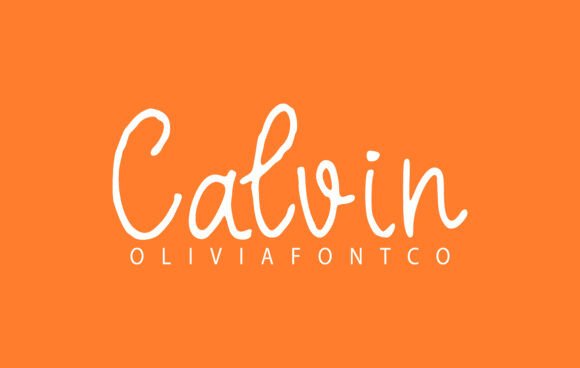
Introducing Calvin Font: The Ultimate Handwritten Font for Creative Expression
Are you looking for a font that can add a touch of romance and elegance to your creative projects? Look no further than Calvin Font, an authentic handwritten font designed to take your ideas to the next level. With its unique blend of sophistication and playfulness, Calvin Font is the perfect choice for anyone looking to add a personal touch to their designs.
What Makes Calvin Font Special?
Calvin Font is an expertly designed font that boasts a range of features that make it stand out from the crowd. Here are just a few reasons why Calvin Font is a true favorite among designers:
- Authentic Handwritten Style: Calvin Font is a genuine handwritten font that captures the essence of traditional penmanship. Its unique character and flair make it perfect for adding a personal touch to any design.
- Romantic Touch: With its elegant strokes and refined lines, Calvin Font exudes a sense of romance and sophistication. It’s the perfect choice for wedding invitations, love letters, and other designs that require a touch of whimsy and charm.
- Legibility: Despite its ornate appearance, Calvin Font is remarkably legible, making it perfect for use as both title and body text. Whether you’re designing a magazine headline or a social media post, Calvin Font is easy to read and understand.
- Versatility: Calvin Font is an incredibly versatile font that can be used for a wide range of designs, from magazine headlines and social media posts to branding, wedding invitations, and more.
10 Design Uses for Calvin Font
Calvin Font is an incredibly versatile font that can be used in a variety of design contexts. Here are just a few ideas to get you started:
- Magazine Headlines: Add a touch of elegance and sophistication to your magazine headlines with Calvin Font. Its unique character and flair make it perfect for grabbing readers’ attention and setting your publication apart from the crowd.
- Social Media Posts: Take your social media posts to the next level with Calvin Font. Whether you’re designing a Facebook post, Instagram story, or Twitter header, Calvin Font is sure to make your content stand out.
- Branding: Establish your brand’s identity with Calvin Font. Its unique character and flair make it perfect for use in logos, business cards, and other marketing materials.
- Wedding Invitations: Make your wedding invitations truly special with Calvin Font. Its romantic touch and elegant appearance make it perfect for formal and informal wedding stationery.
- Cards and Greeting Cards: Add a personal touch to your cards and greeting cards with Calvin Font. Whether you’re designing a birthday card, Christmas card, or thank-you note, Calvin Font is sure to make your message stand out.
- Packaging Design: Take your packaging design to the next level with Calvin Font. Its unique character and flair make it perfect for use on product labels, packaging inserts, and other marketing materials.
- Advertising: Make your advertising truly unforgettable with Calvin Font. Its elegant appearance and romantic touch make it perfect for use in print ads, digital ads, and other marketing campaigns.
- Signage: Create eye-catching signage with Calvin Font. Its unique character and flair make it perfect for use on signs, banners, and other visual displays.
- Menus and Brochures: Add a touch of elegance and sophistication to your menus and brochures with Calvin Font. Its legibility and versatility make it perfect for use in a variety of culinary and hospitality contexts.
- Infographics: Take your infographics to the next level with Calvin Font. Its unique character and flair make it perfect for use in charts, graphs, and other visual displays.
Typography Tips for Using Calvin Font
To get the most out of Calvin Font, here are a few typography tips to keep in mind:
- Use a clear and concise message: Calvin Font is a elegant and refined font, so make sure your message is clear and concise. Avoid clutter and excessive ornamentation to ensure your text is easy to read and understand.
- Experiment with font sizes: Calvin Font is a versatile font that can be used at a range of font sizes. Experiment with different sizes to find the one that works best for your design.
- Pay attention to line spacing: To ensure your text is easy to read, make sure to leave enough space between lines. A line spacing of 1.2 to 1.5 is usually recommended.
- Use Calvin Font with complementary fonts: Calvin Font is a unique font that can be paired with a range of complementary fonts. Experiment with different font combinations to find the one that works best for your design.
The Benefits of Using Calvin Font
There are many benefits to using Calvin Font in your designs. Here are just a few:
- Elegance and sophistication: Calvin Font adds a touch of elegance and sophistication to any design. Its unique character and flair make it perfect for formal and informal designs.
In conclusion, Calvin Font is an exceptional handwritten font that offers a unique blend of elegance, sophistication, and playfulness. Its romantic touch, legibility, and versatility make it perfect for a wide range of design applications, from magazine headlines and social media posts to branding, wedding invitations, and more. Whether you’re a designer, entrepreneur, or creative hobbyist, Calvin Font is sure to become a favorite in your design arsenal.